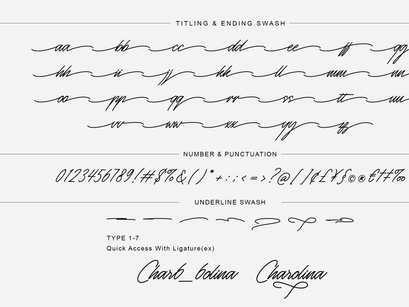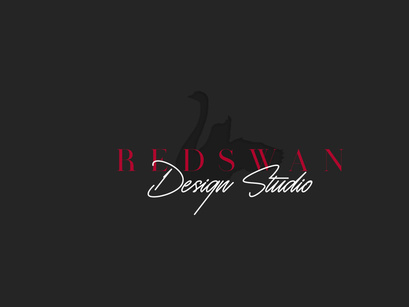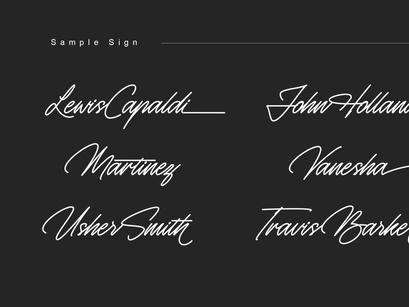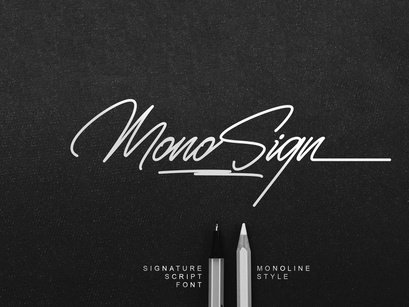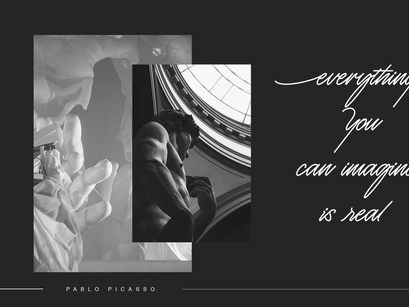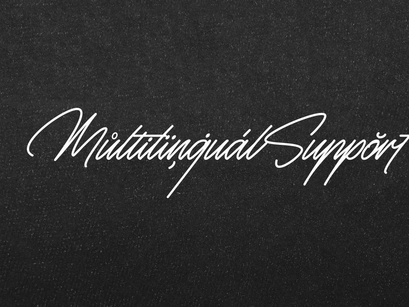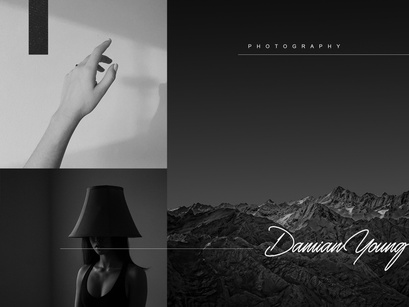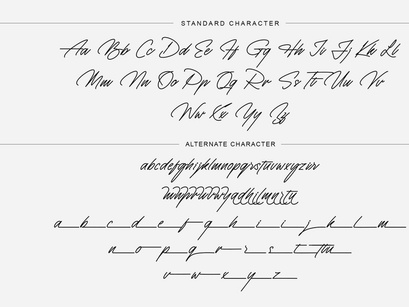
Monosign - Monoline Signature Font
Monosign
Monosign is a Beautiful Signature font, with a Monoline Style. Is perfect for many different project such as logos & branding, invitation, stationery, wedding designs, social media posts, advertisements, product packaging, product designs, label, photography, watermark, special events or anything.This font is PUA encoded which means you can access all of the glyphs and swashes with ease!
Alternate
Titling
Swash
Uppercase and Lowercase letters
Numbering and Punctuations
Also Multilingual Support